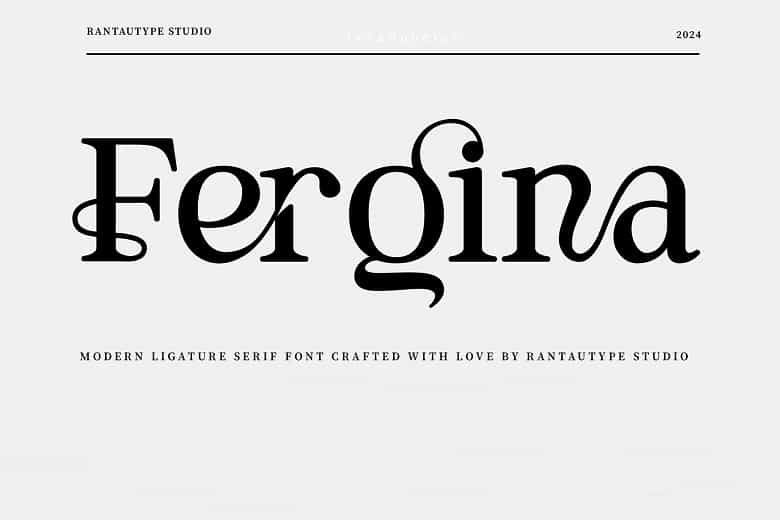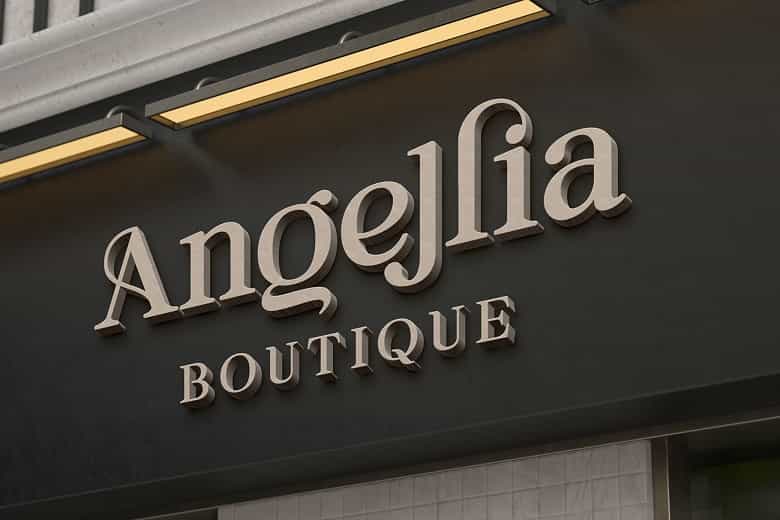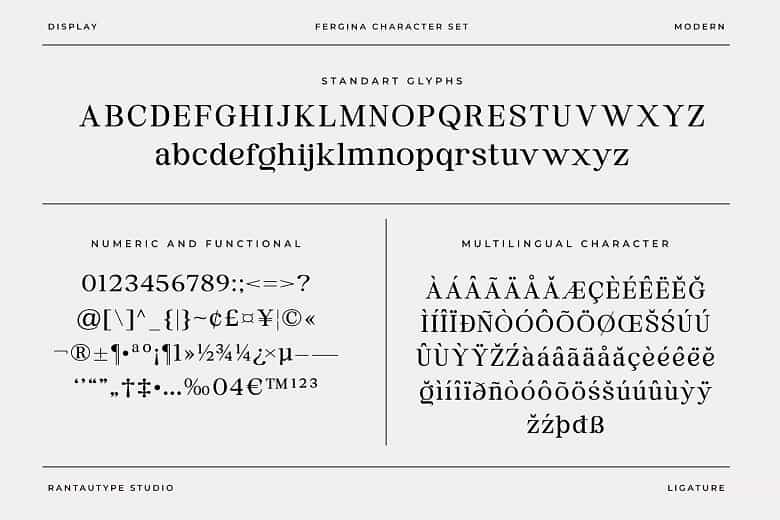
Fergina is a beautiful serif font which contains a combination of sophistication and wit with a touch of traditionalism. The clean lines of the serifs combined with the right proportions make it suitable for branding, and any other editorial or luxury design. This font is perfect for adding elegance and sophistication to any piece of work and give it a touch of classic look.